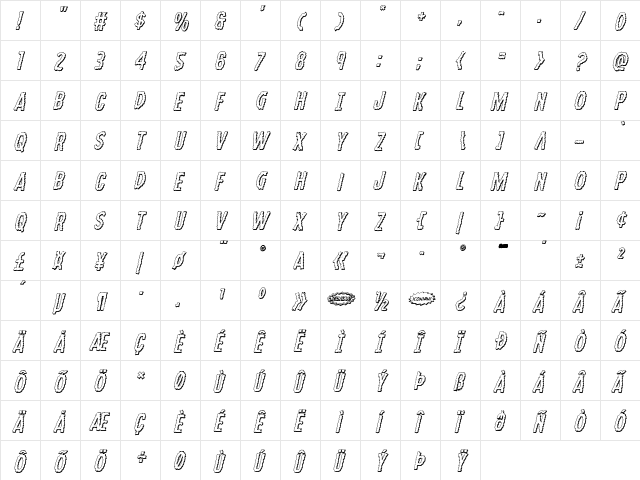
Ampire 3D Italic Italic
Design Context for Ampire 3D Italic Typeface
Ampire 3D Italic takes a measured approach to typography — its balanced proportions and neutral character make it a reliable workhorse for both digital and print work. The dynamic lean of this cut emphasises speed and emphasis in any layout.